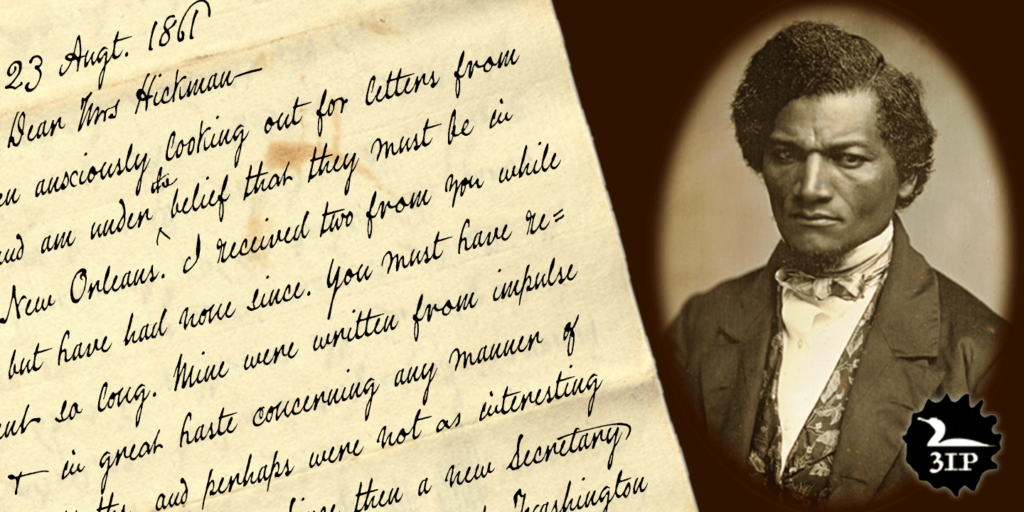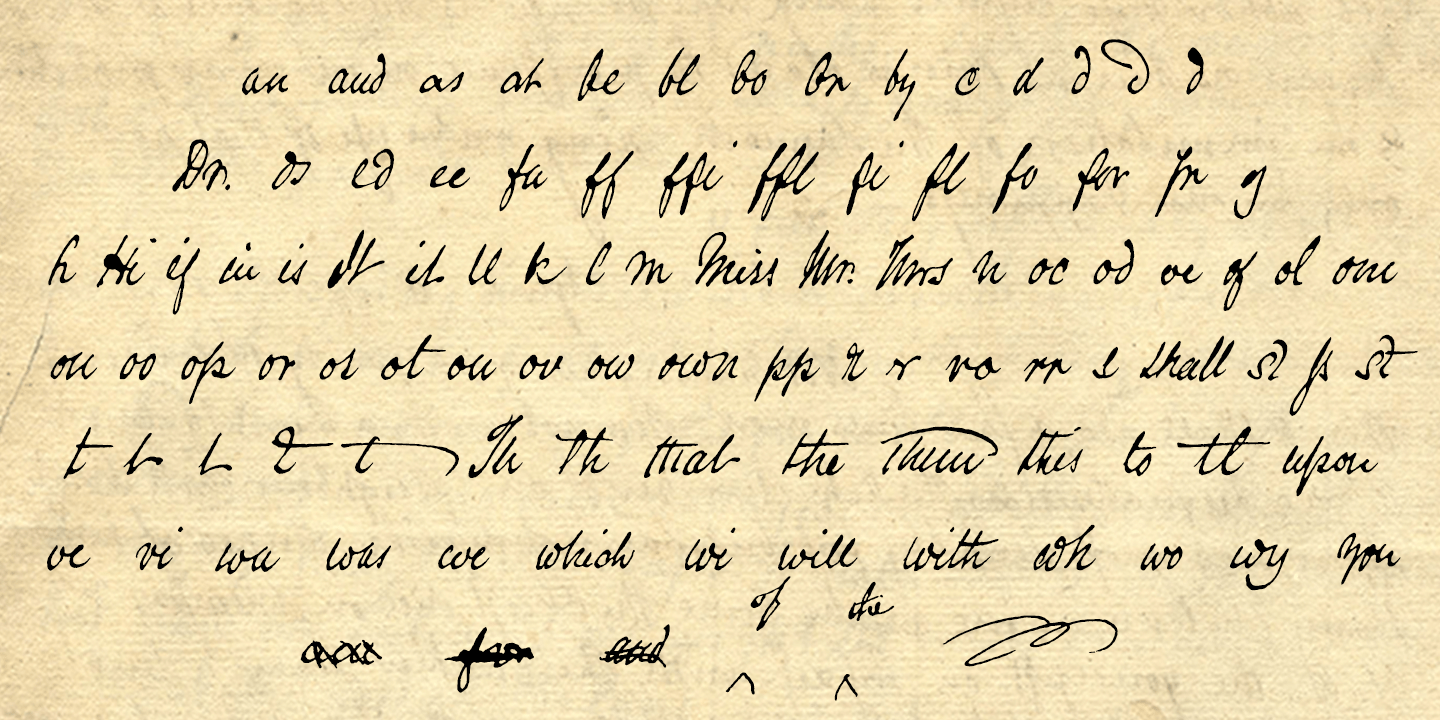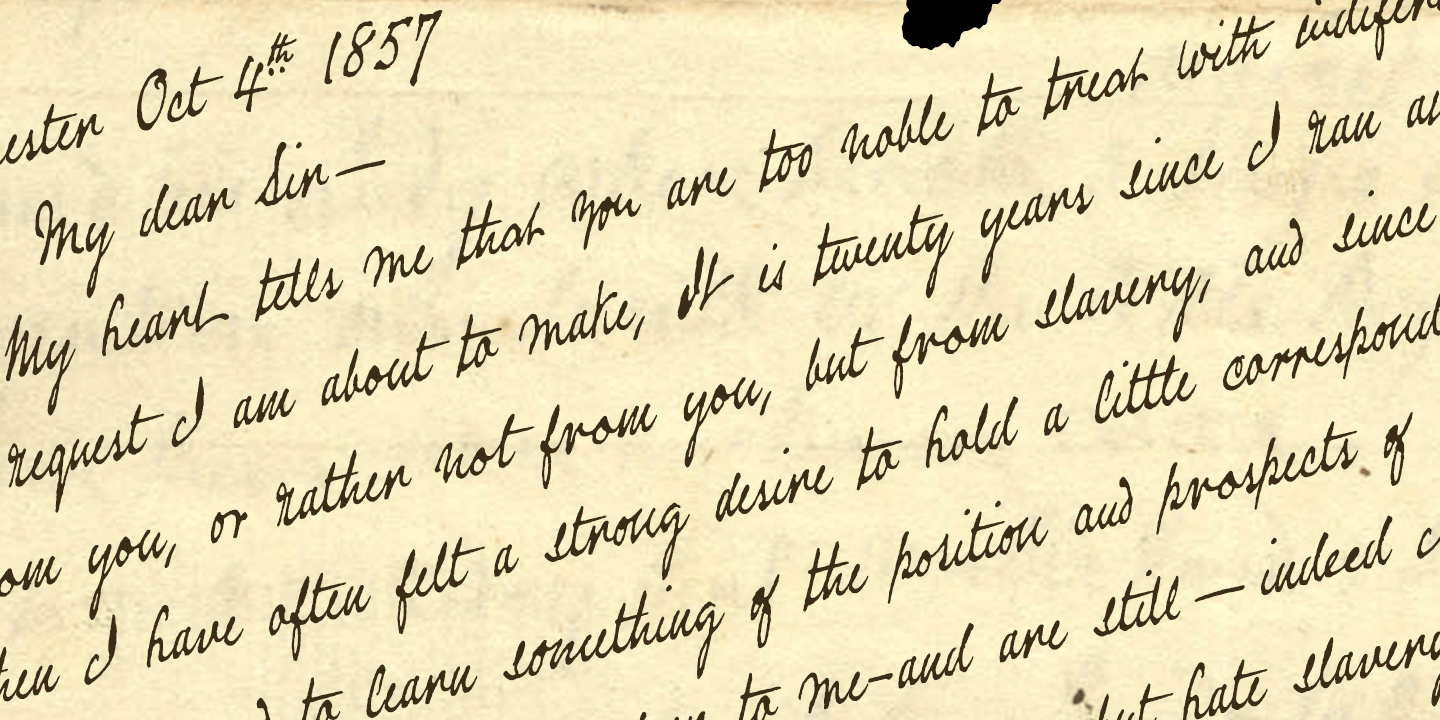
About Douglass Pen
Douglass Pen was inspired by the handwriting of Frederick Douglass, who was born an American slave but died a distinguished 19th century statesman, orator, and abolitionist leader. He also had fine penmanship. Douglass Pen is modeled chiefly after Douglass\’s…